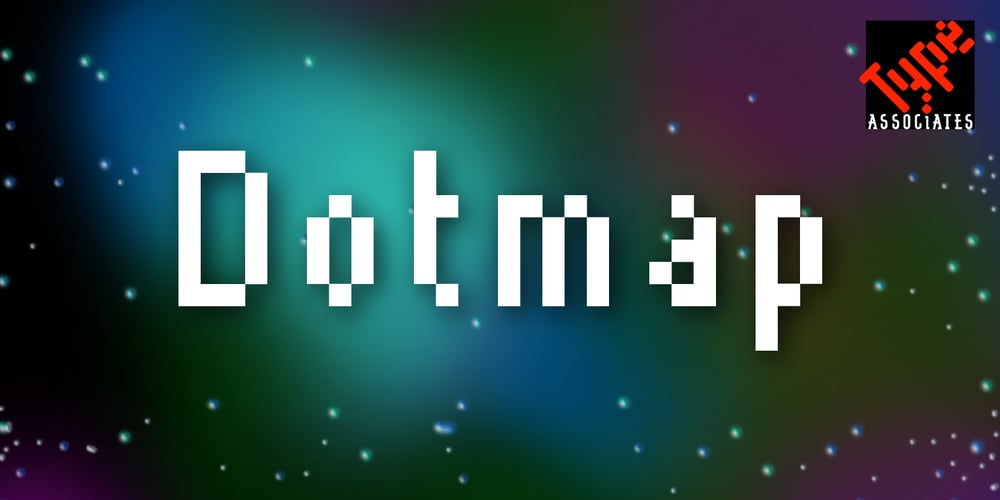
Dotmap Font Family was designed by Russell Bean and published by Type Associates. Dotmap contains 3 styles and family package options. The inspiration for Dotmap came about while researching text size screen fonts for use on LCD and LED displays. Conforming strictly to a matrix there are no kerning pairs and all characters are positioned on a fixed increment providing the user an authentic grid effect. This font is suitable for screen or print.